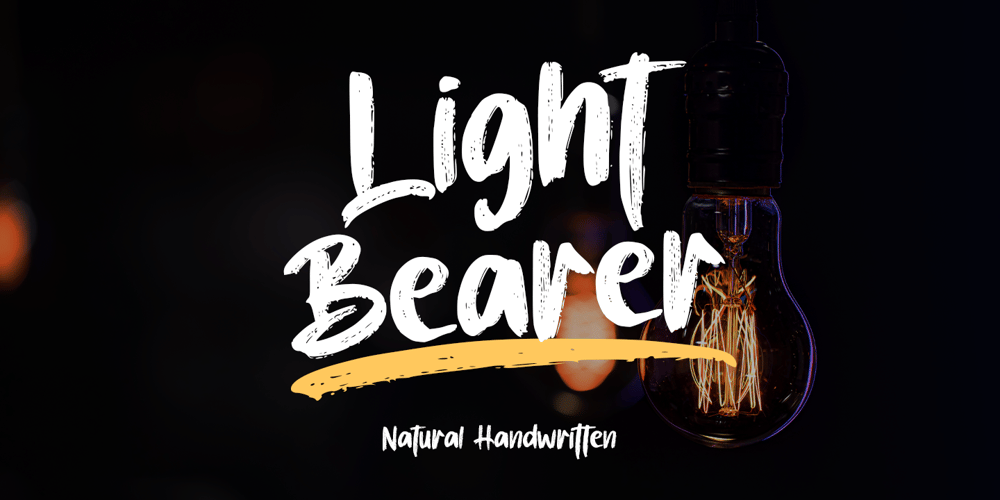
Light Bearer Font Family was designed by Thomas Aradea and published by Letterara. Light Bearer contains 2 styles and family package options. Light Bearer is a cool handwritten font. It’s ideal for branding and decorate your projects. The Light Bearer font has a classy and modern look that can be used for logos, branding, posters, advertisements, stationery, movies, social media posts, youtube channels, and much more! This is a PUA code which means you can access all the glyphs and sweeps easily!